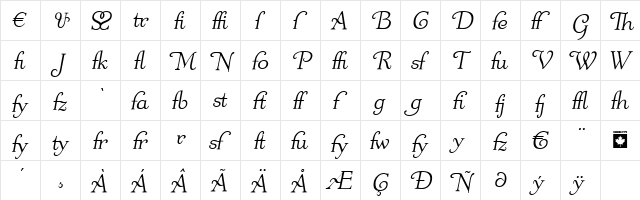
Odette Alt Italic
Design Context for Odette Alt Typeface
Odette Alt offers clean, dependable letterforms without strong stylistic allegiance, making it a practical choice for designers who need flexibility. The slanted form adds forward momentum and visual energy.
Pro Tip: Use Odette Alt for emphasis, pull quotes, and subheadings where its slanted energy can add rhythm to the layout.